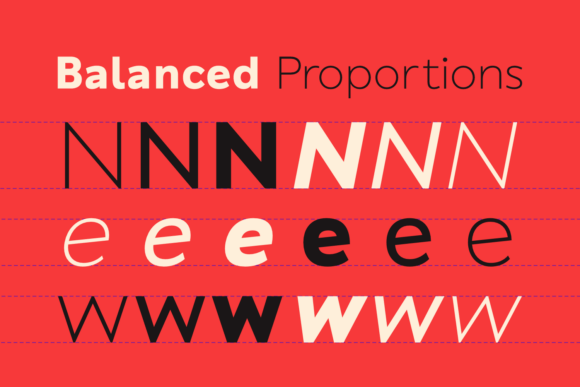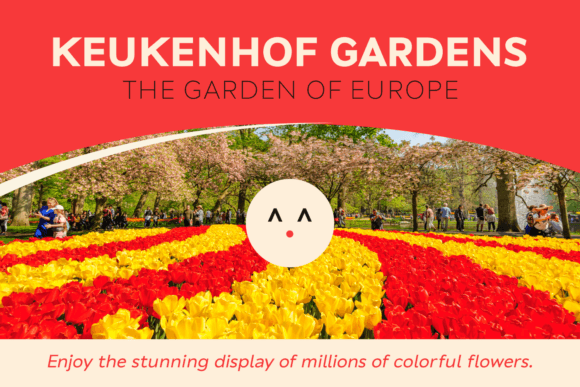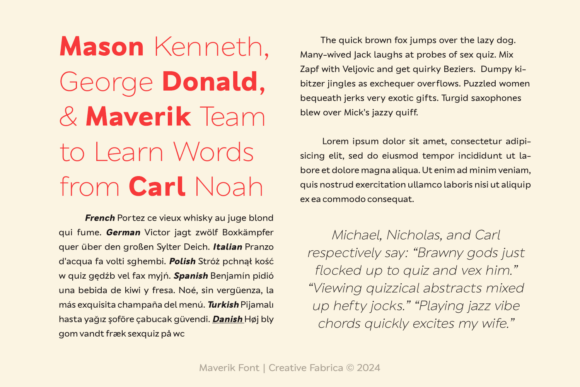
Introduction to Maverik Font
Have you ever stumbled upon the perfect font for your creative project, only to realize it’s no longer available for free download? This frustrating experience is all too common for designers, but what if you could elevate your designs with a high-quality, versatile font that’s available for use? Enter the Maverik Font, a sophisticated sans-serif typeface designed to deliver a professional yet approachable aesthetic.
As a valuable design resource, the Maverik Font is perfect for modern branding, sleek digital interfaces, and compelling editorial layouts. Its clean lines, balanced proportions, and transparent background make it an ideal choice for designers looking to create stunning visual experiences. Whether you’re working on a creative project or simply seeking a reliable font for your design needs, the Maverik Font is an excellent addition to your design arsenal.
Key Features of Maverik Font
- High-quality design resource for creative projects, perfect for graphic designers and artists.
- Features a transparent background, making it easy to use in any design project.
- Includes a range of glyphs and characters, making it a versatile font for various creative projects.
Honest Review: Maverik Font
As a designer, I’m always on the lookout for high-quality design resources to elevate my creative projects. Recently, I had the chance to work with the Maverik Font, and I’m excited to share my honest review with you.
What works well: ✨ The Maverik Font is incredibly versatile, with a clean and modern design that’s perfect for a wide range of applications, from digital products to print materials. The font is also incredibly easy to use, with a transparent background that makes it simple to overlay on top of images or other design elements.
Some limitations: ⚠️ While the Maverik Font is generally high quality, I did notice that it can be a bit heavy-handed in certain font sizes. Additionally, the font’s versatility can sometimes make it feel a bit generic, lacking a strong personality or unique touch.
Overall impression: The Maverik Font is a solid design resource that’s perfect for designers looking for a high-quality, easy-to-use font for their creative projects. While it may not be the most unique or personality-driven font out there, it’s a great option for designers who want a reliable, high-quality font that’s easy to work with.
Tips for Getting the Most Out of Maverik Font
To get the most out of Maverik Font, use it in conjunction with other design elements, such as images and graphics. Experiment with different font sizes and styles to create a visually appealing design. The transparent background of the Maverik Font makes it easy to use in any design.
The Maverik Font is a versatile design resource that can be used in a variety of creative projects, including logos, business cards, and presentations. Its high-quality features and transparent background make it a great choice for designers looking for a free download design resource.